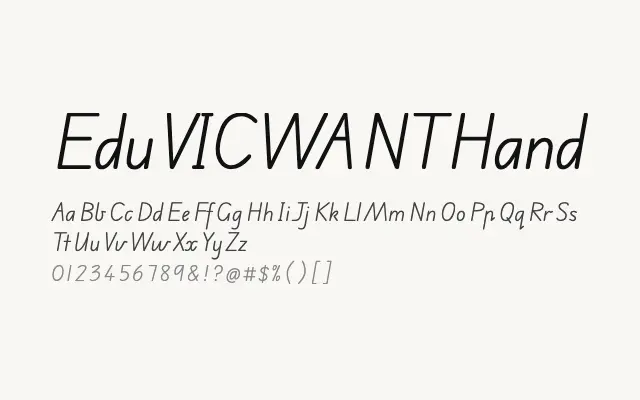
Edu VIC WA NT Hand
A curriculum-based handwriting font modelling the Victorian Modern Cursive style, with broader character coverage for multilingual educational use.
Edu VIC WA NT Hand is aimed at educational publishers and teachers producing materials aligned with the Australian state curriculum. The Latin Extended character set makes it more versatile than the Beginner cut for classrooms with diverse linguistic backgrounds. Like its sibling fonts, it remains a specialist tool rather than a general-purpose typeface.
A casual handwriting-style script based on the Victorian Modern Cursive curriculum, with a slightly more natural and less formal appearance than the Beginner variant. Extended Latin coverage broadens its utility for multilingual Australian classrooms.